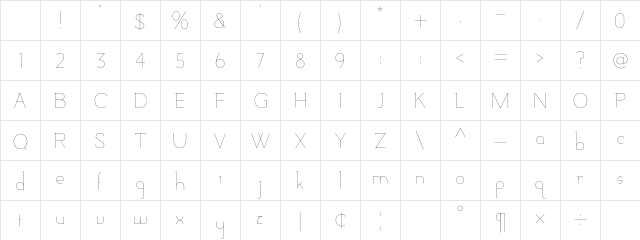
Adelaide is a composed and adaptable typeface that performs quietly and consistently across a wide range of design contexts. Its slender proportions lend an understated elegance to any composition.